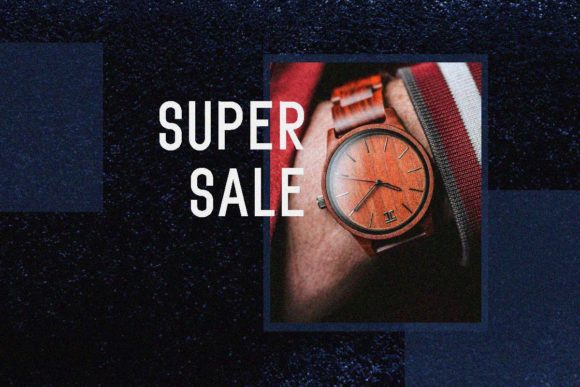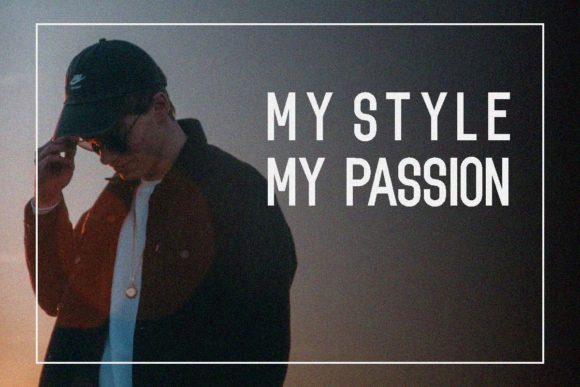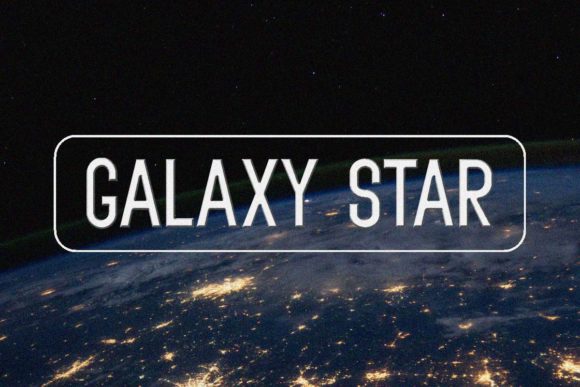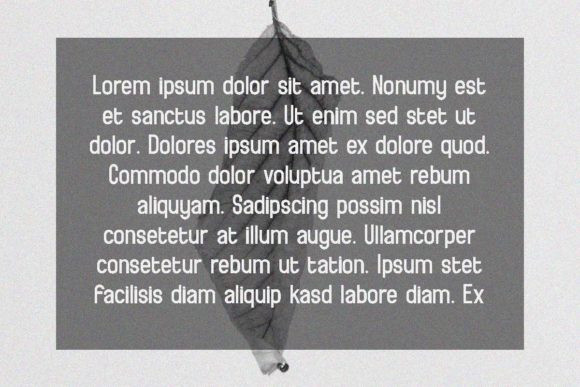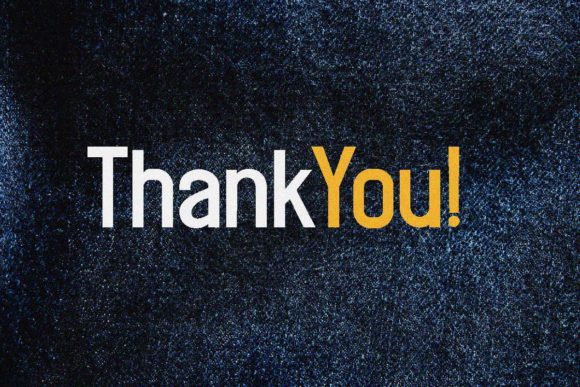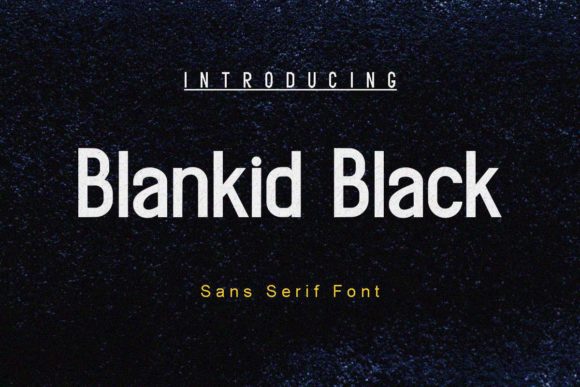
Introducing Blankid Black Font: The Ultimate Sans Serif Typeface for Modern Designers
In the world of typography, a good font can make all the difference in creating visually stunning designs. For designers and crafters looking for a simple yet professional typeface, Blankid Black Font is an excellent choice. This beautiful sans serif font is perfect for a wide range of design projects, from posters and headlines to logo designs and branding.
What is Blankid Black Font?
Blankid Black is a sleek and modern sans serif font that exudes simplicity and elegance. Its clean lines and minimalist design make it an ideal choice for designers who want to create a strong visual impact without overwhelming their audience. This versatile typeface is suitable for various design applications, including:
• Posters and flyers
• Headlines and titles
• Block letters and signage
• Subheadings and captions
• Logo designs and branding
• Digital and print media
Key Features of Blankid Black Font
So, what makes Blankid Black Font stand out from other typefaces? Here are some of its key features:
• Simple and neat design: Blankid Black Font boasts a clean and minimalist design that ensures your message gets across clearly.
• High legibility: The font’s clear lines and generous spacing make it easy to read, even at small sizes.
• Versatile: Use Blankid Black Font for a wide range of design projects, from posters to logo designs.
• Professional look: This typeface has a professional and sleek appearance that’s perfect for businesses and brands.
Benefits of Using Blankid Black Font
By choosing Blankid Black Font for your design projects, you can enjoy several benefits, including:
• Enhanced visual appeal: This font’s sleek design and clean lines will elevate your designs and make them more visually appealing.
• Improved readability: The font’s high legibility ensures that your message gets across clearly, reducing the risk of miscommunication.
• Time-saving: With Blankid Black Font, you can create professional-looking designs quickly and easily.
How to Use Blankid Black Font
Using Blankid Black Font is easy. Here are some tips to get you started:
• Pair it with other fonts: Combine Blankid Black Font with other fonts to create a unique and visually appealing design.
• Experiment with sizes and colors: Play around with different font sizes and colors to create a design that stands out.
• Use it for headlines and titles: Blankid Black Font is perfect for headlines and titles, where its bold and sleek design can make a strong impact.
In conclusion, Blankid Black Font is an excellent choice for designers and crafters looking for a simple yet professional sans serif typeface. Its clean design, high legibility, and versatility make it perfect for a wide range of design projects. With its numerous benefits, including enhanced visual appeal, improved readability, and cost-effectiveness, Blankid Black Font is a valuable addition to any designer’s toolkit.